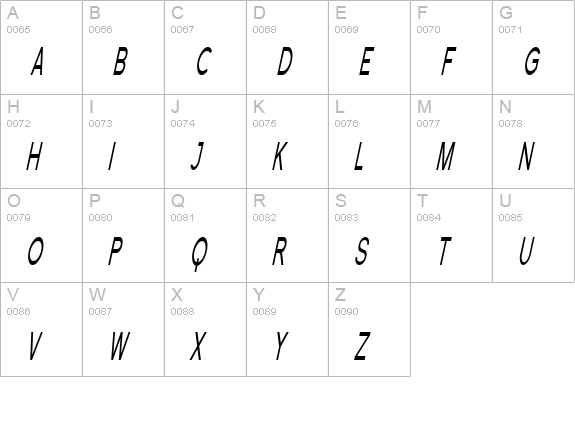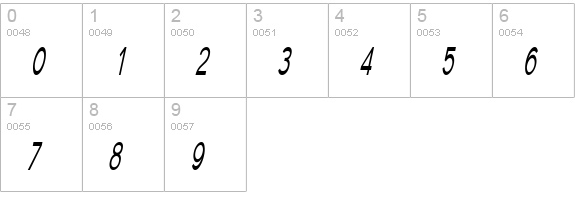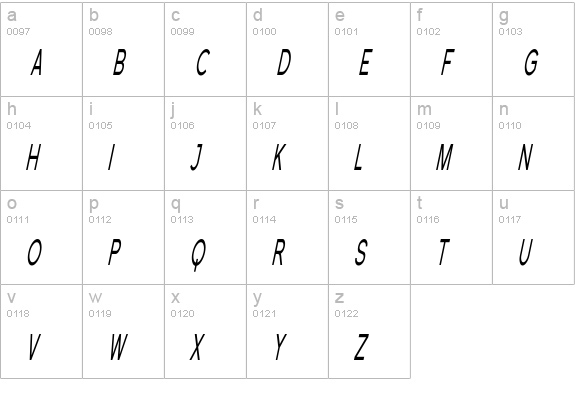
Florencesans SC Comp Italic is a distinctive, italic variant in the Florencesans typeface family \xE2\x80\x94 well suited to design and typography projects.
Florencesans SC Comp Italic is a beautifully crafted font that exudes elegance and sophistication. Its delicate curves and slanted design add a touch of flair to any project, making it perfect for headings, quotes, and other display text. The italic style of this font gives it a dynamic and modern look, while still maintaining a sense of classic charm. What sets Florencesans SC Comp Italic apart is that it is available for free download at FontsMarket.com. This means that you can easily access and use this stunning font in your designs without any cost. Whether you're working on a personal project or a professional design, Florencesans SC Comp Italic is a versatile and eye-catching choice that will elevate your work to the next level.